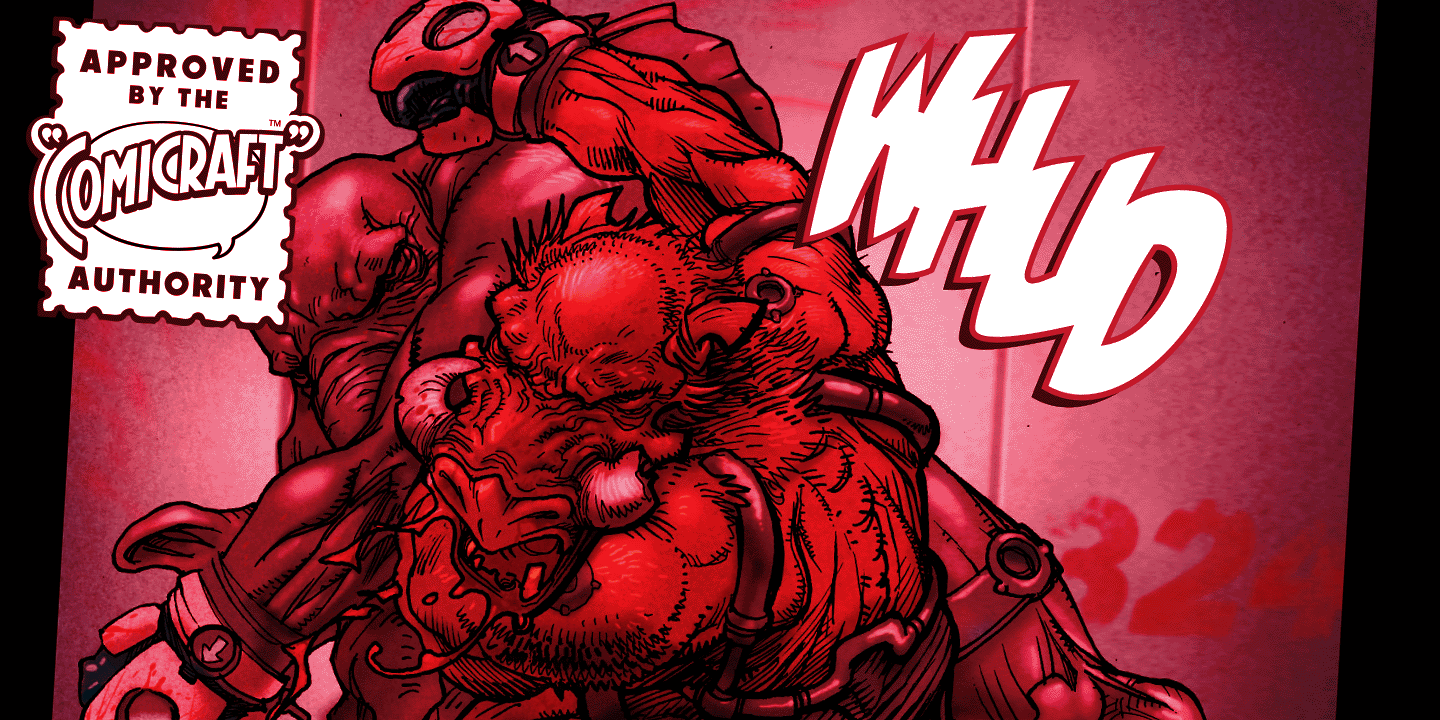
Biff Bam Boom Font Free Download is a lively and bold display typeface that brings excitement and energy to your designs. Its playful and punchy letterforms are perfect for posters, comics, branding, and any creative work that needs to grab attention instantly.
Whether you're designing fun event flyers, dynamic logos, or eye-catching headlines, Biff Bam Boom Font Free Download adds a burst of personality and vibrancy. Its unique style works well across both print and digital platforms.
Inject your projects with the explosive charm of Biff Bam Boom Font Free Download. Try it today and watch your typography make a big impact!